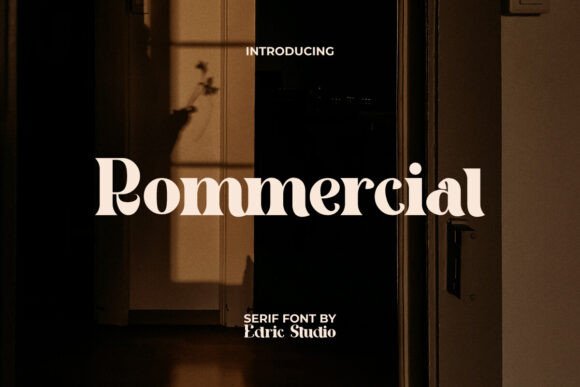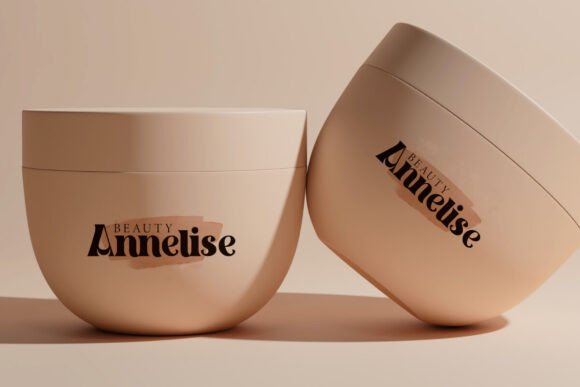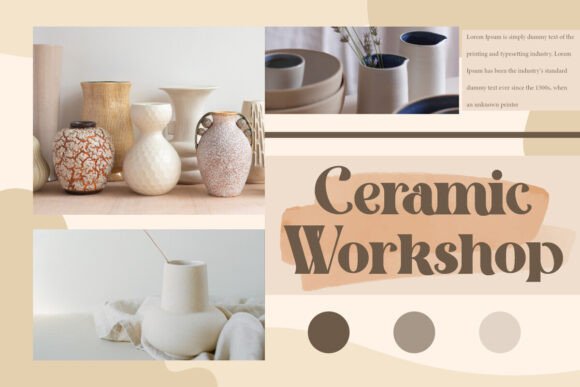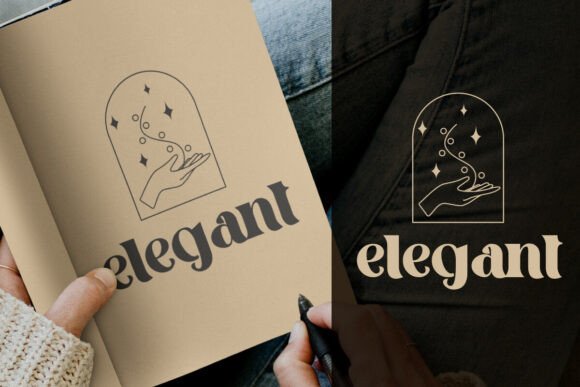
Rommercial Font: A Chic Serif Font for Modern Branding & Logo Design
About the Rommercial Font
Crafted with precision, the Rommercial Font is ready to bring your ideas to life. Rommercial Font is a stunning classic serif display font with a charming medieval style. This font will give an authentic feel to your design, such as apps, billboards, blogs, brochures, cover, flyer, header, logos, packaging design, poster, product label, quotes, screen print, signage, stationery, sticker, title, website, and much more.
Rommercial excels as a headline font for projects requiring a touch of vintage elegance. Its medieval charm is ideal for branding initiatives related to historical themes, artisanal goods, or luxury products. It also works well in posters and short-form text applications such as signage and packaging where its strong character can command attention. However, avoid using it for large bodies of text; its decorative nature makes it less legible in extended paragraphs or UI elements.
Pairing Rommercial effectively requires considering its strong personality. A clean sans-serif like Montserrat or a modern geometric font such as Futura would create a stylish contrast, balancing its ornate details with contemporary simplicity. For a warmer feel, consider pairing it with a script font such as Great Vibes, but use sparingly to avoid visual clutter.
Rommercial’s overall personality is best described as bold and elegant, conveying a sense of history and craftsmanship. Its classic serif structure combined with the medieval flair makes it an ideal choice for projects aiming for a sophisticated yet vintage feel.
Rommercial Font Usage Examples
Rommercial Font Example